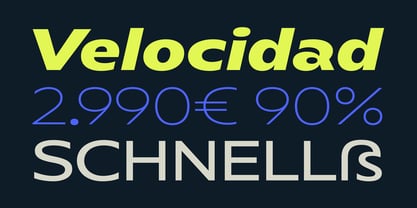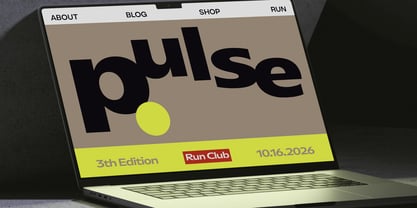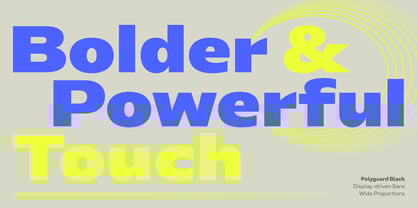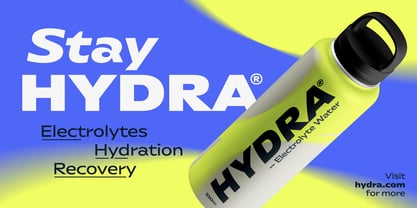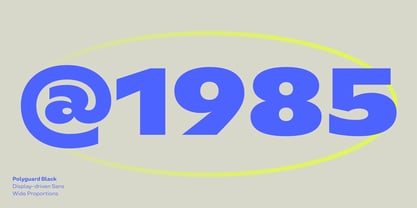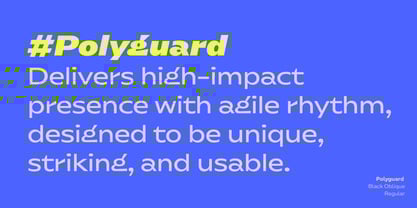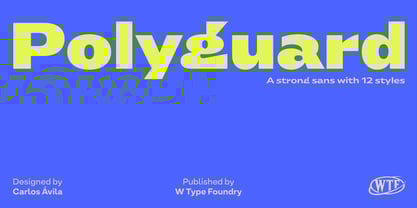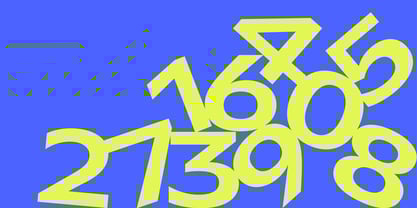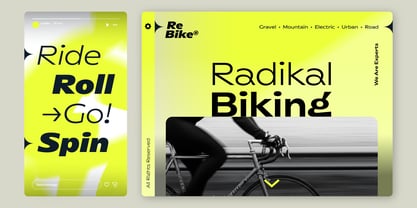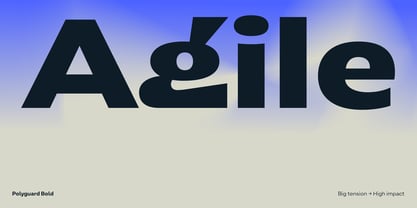
Polyguard
The Polyguard Font Family was designed by Carlos Avila and published by W Type Foundry. Polyguard contains 12 styles and family package options. More about this family
Polyguard is a display-driven sans serif typeface designed with power, movement, and agility at its core. Its slightly wide proportions provide immediate presence and stability, making it ideal for headlines, branding, and high-impact environments. This typeface is sure to make a statement. While rooted in an industrial sensibility, Polyguard is far from mechanical; it expertly balances structure with character. The vertical stroke endings and slightly expanded terminals introduce tension and distinctiveness, giving the typeface a strong identity without sacrificing clarity. The family includes Thin, Light, Regular, Semibold, Bold, and Black weights, each accompanied by matching obliques, ensuring flexibility across various scales while maintaining a strong visual voice. Confident and versatile, Polyguard is perfect for branding, packaging, signage, editorial, and commercial graphics that require both strength and character.